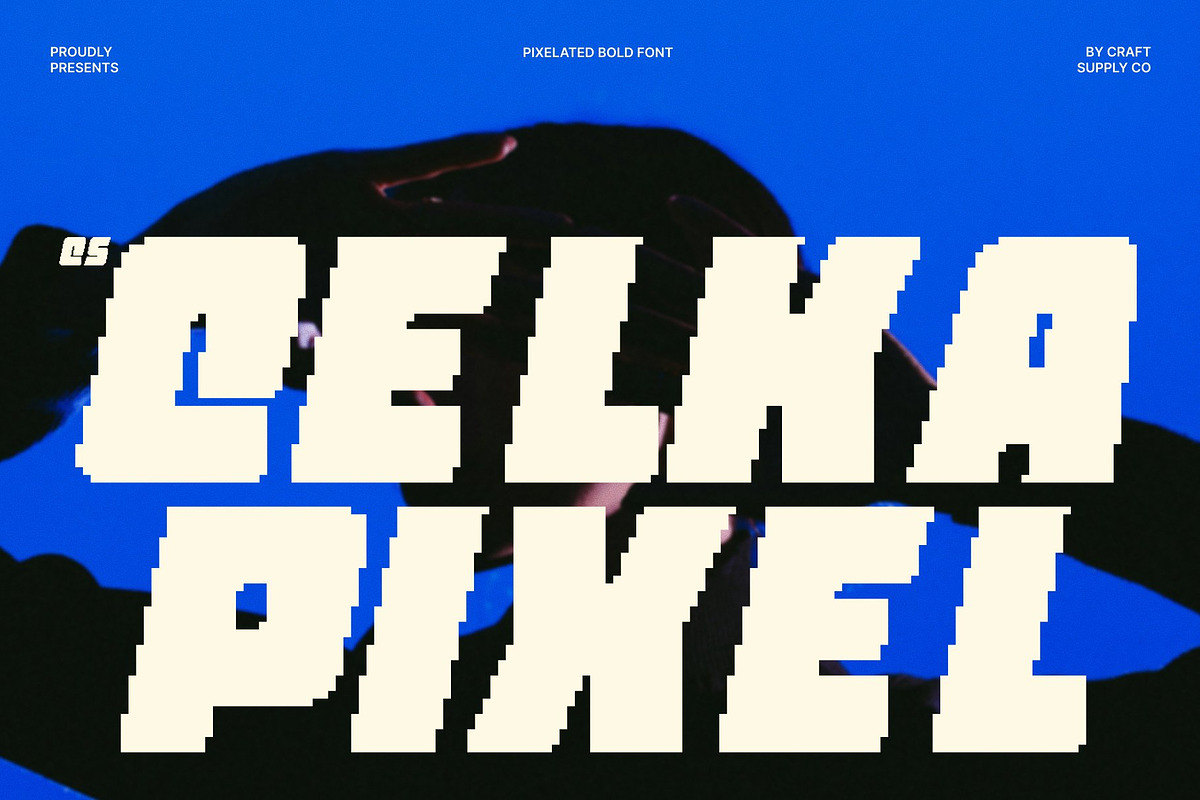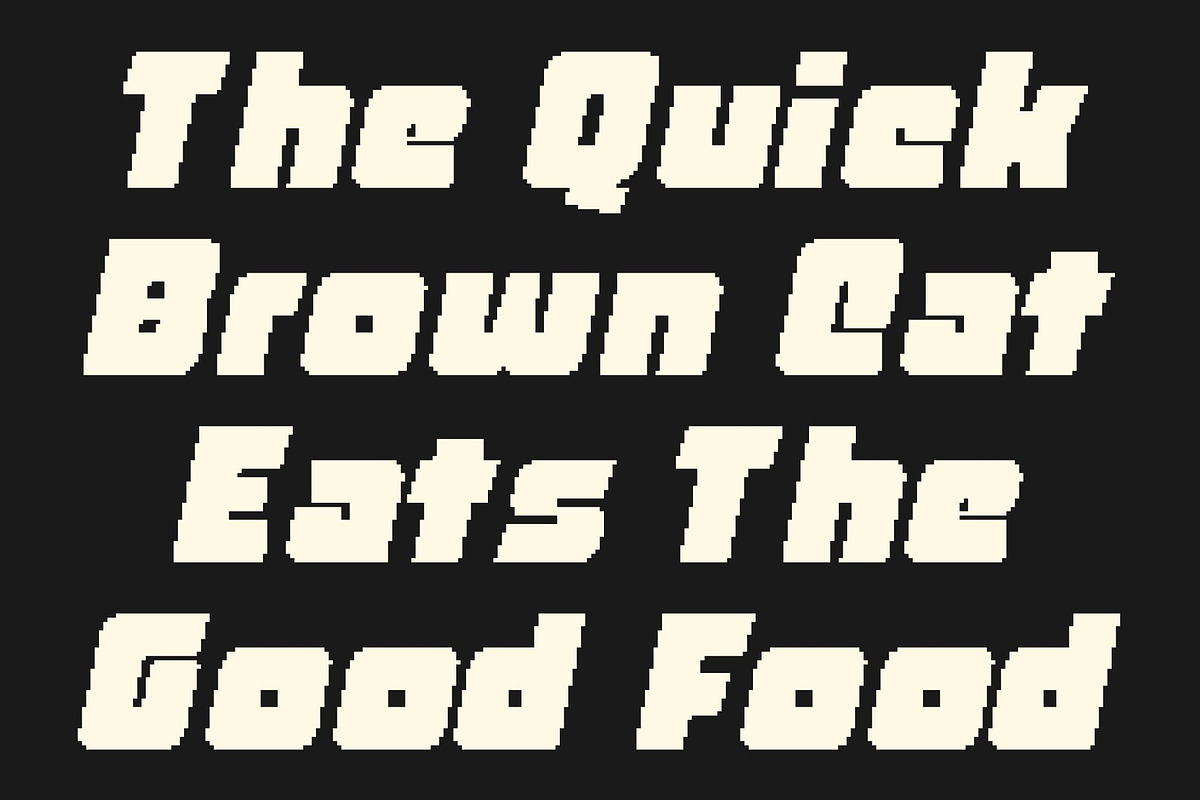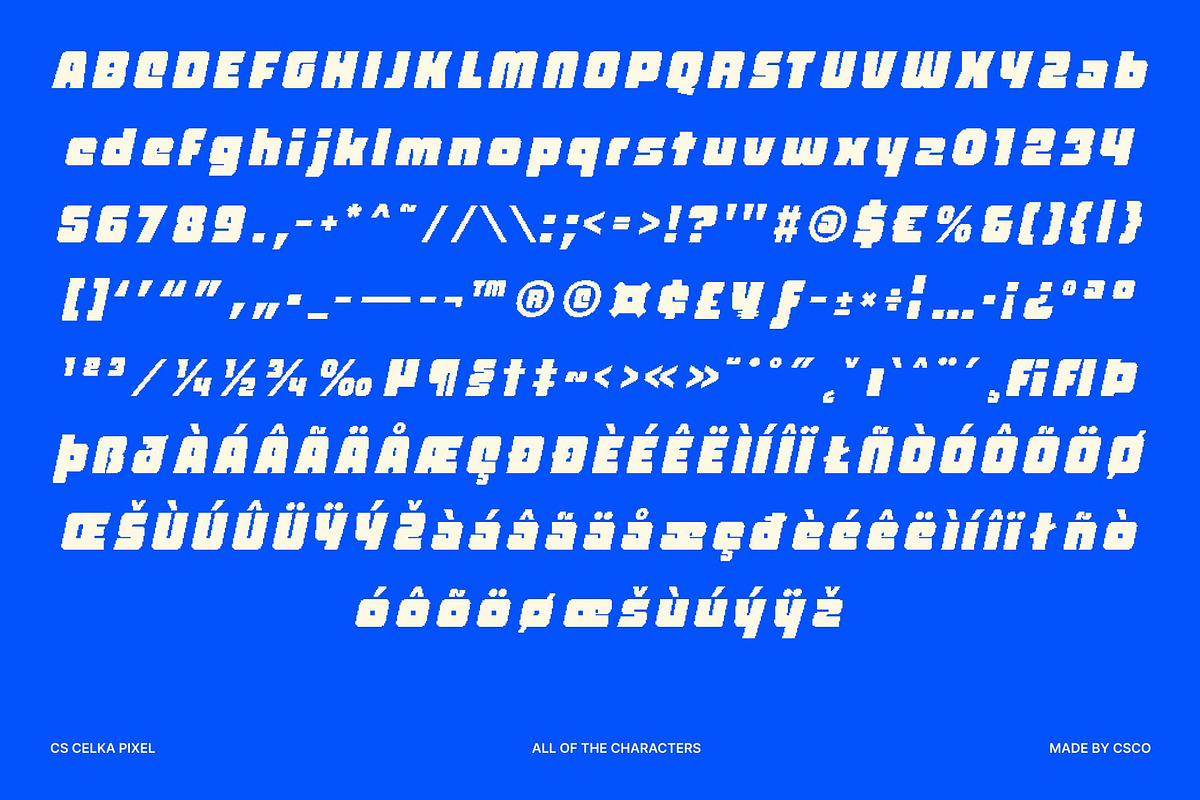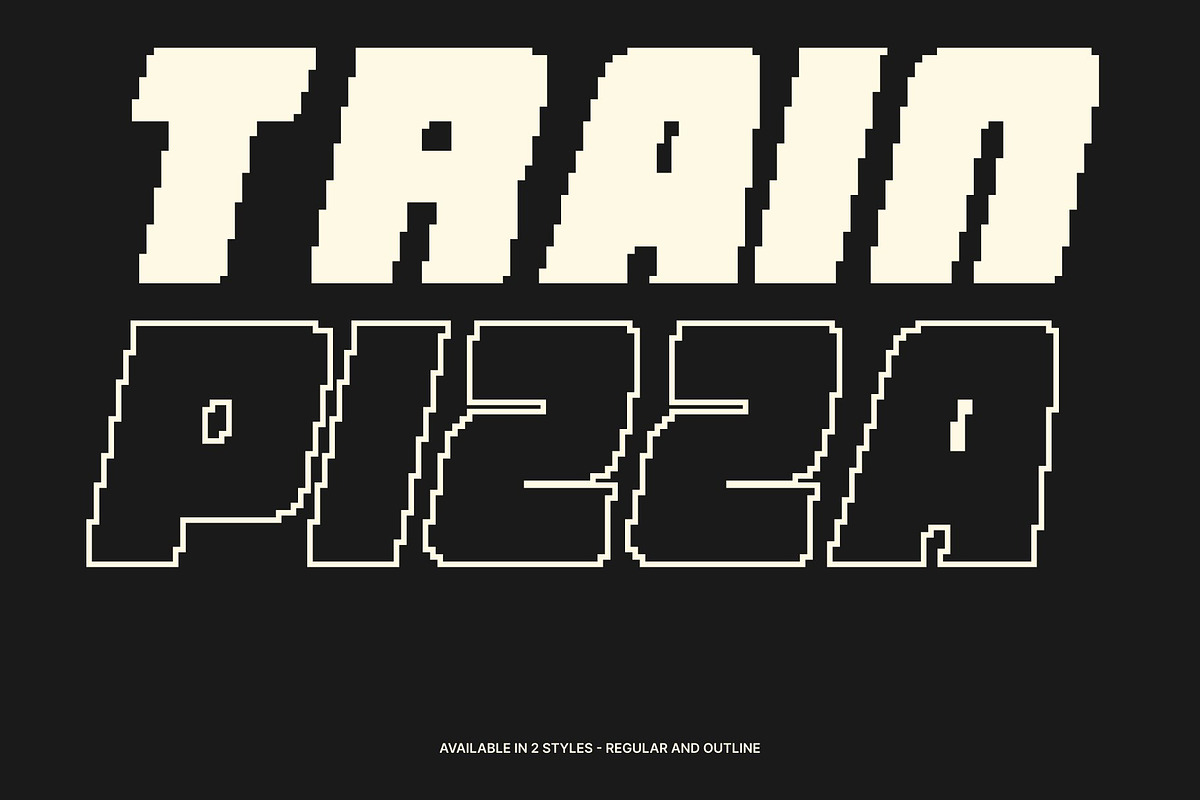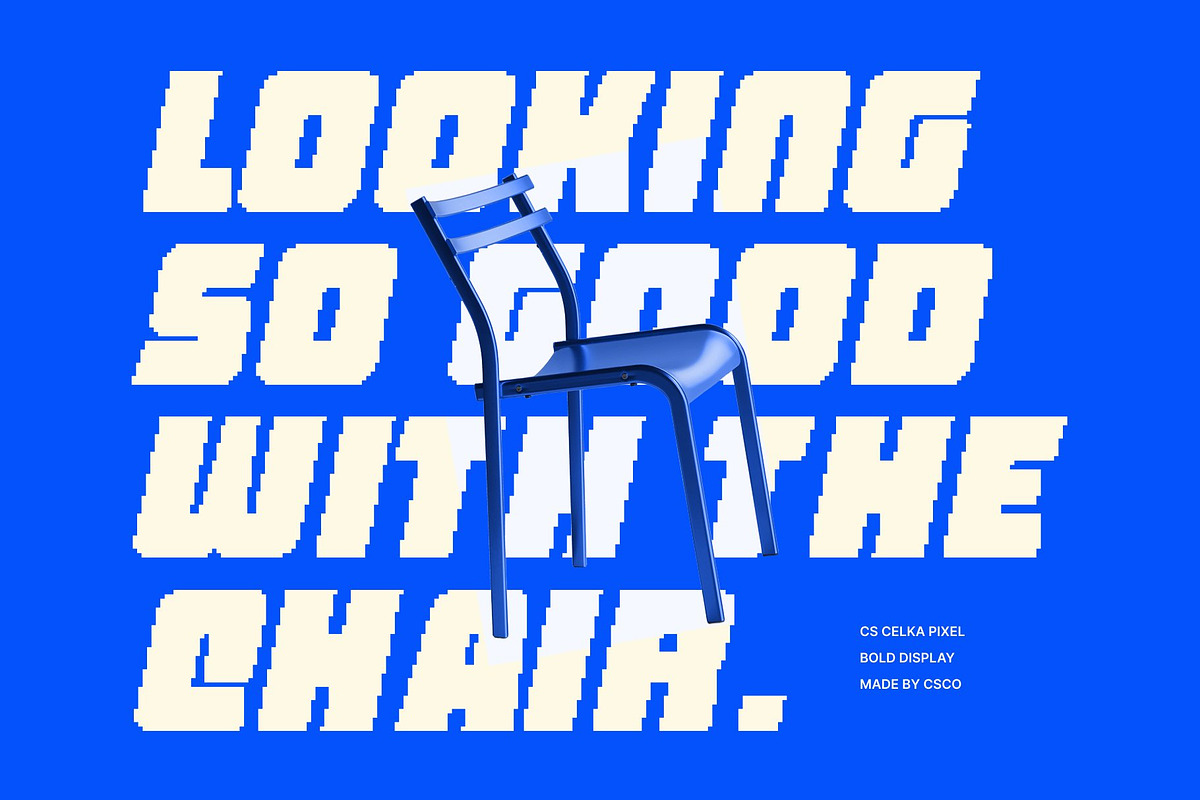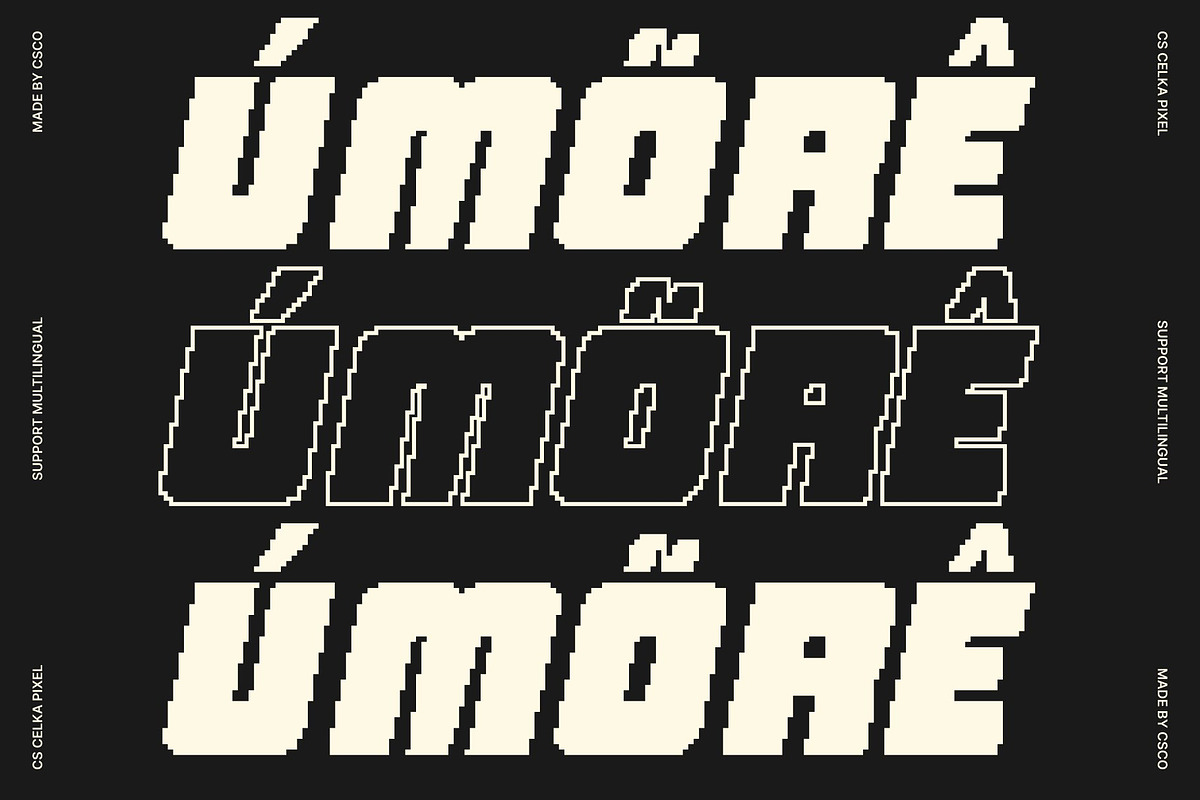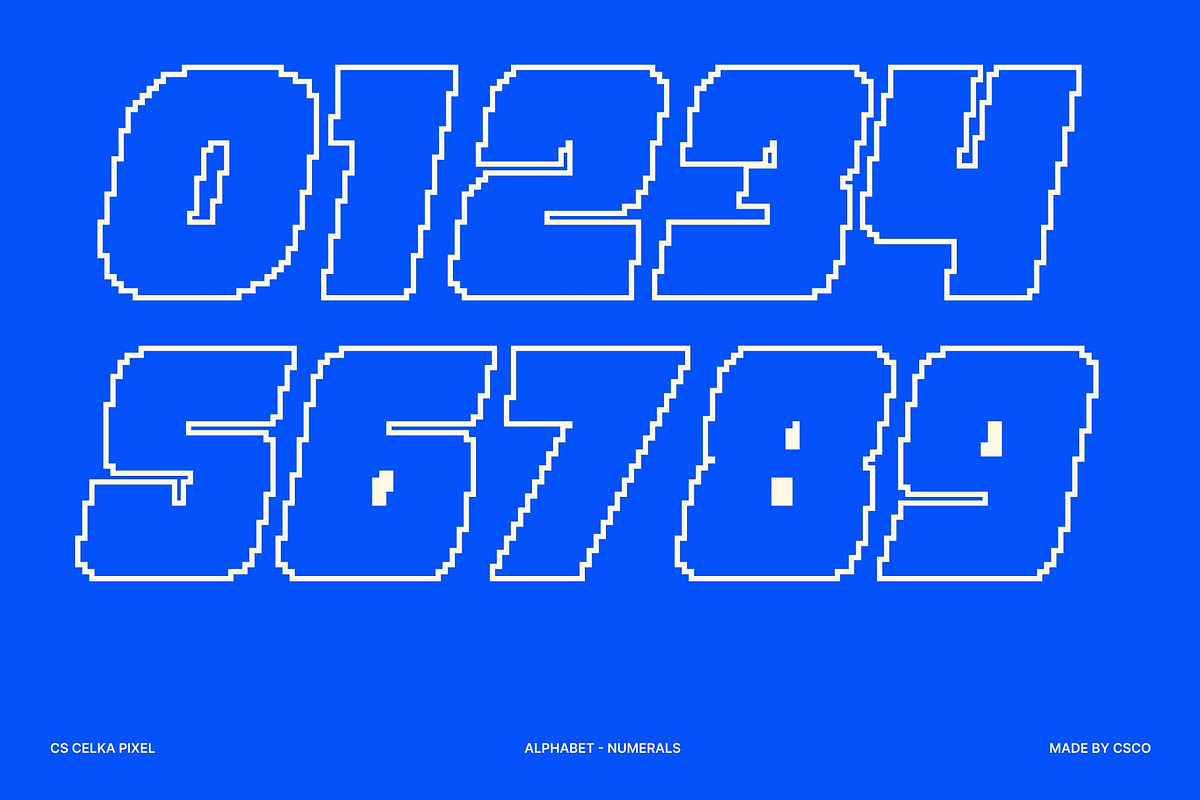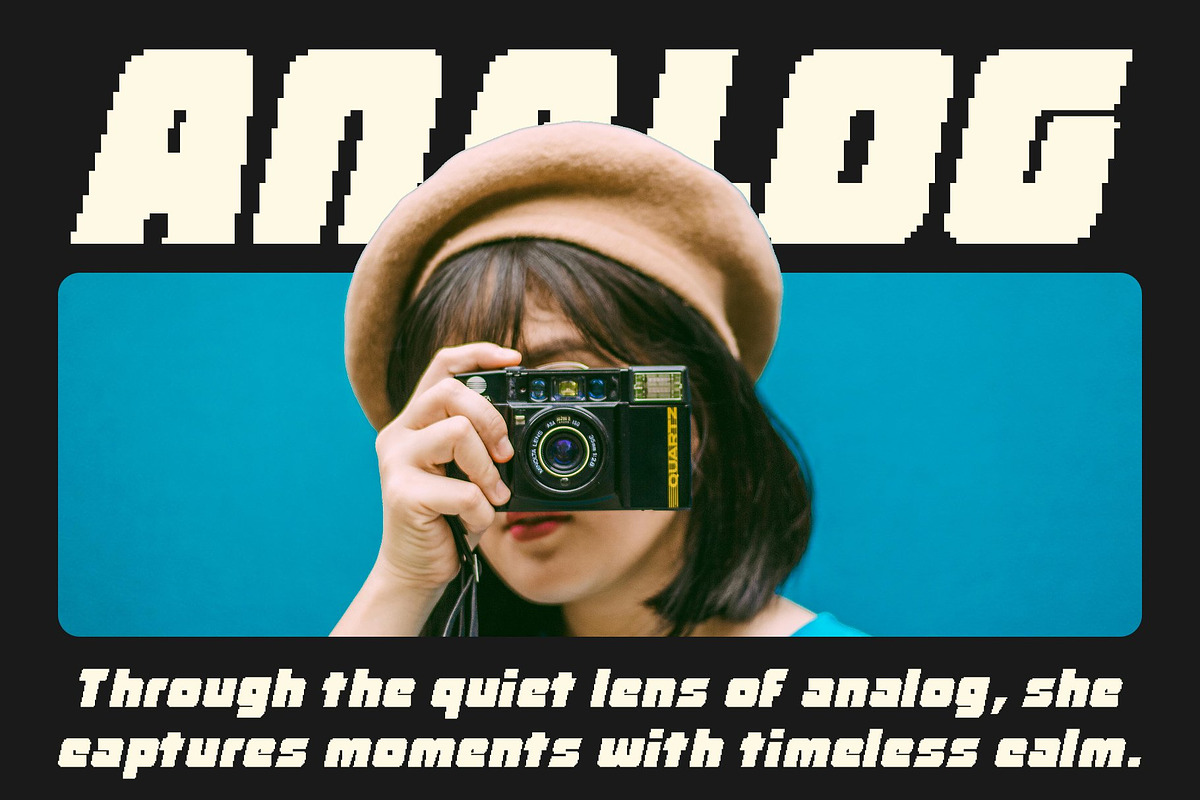
CS Celka Pixel
CS Celka Pixel – Bold Display Font with Strong, Chunky Pixel Presence
Powerful Weight for a Confident, Commanding Digital Look This is a bold display font designed to make an immediate and unforgettable statement. Built with thick, heavy strokes and a pixel-based structure, it projects raw confidence and strength. Every letter feels solid and intentional, ensuring your message is seen, felt, and remembered the moment it appears especially in digital and screen-based designs.
Chunky Pixel Letterforms for Maximum Impact and Visibility Featuring chunky proportions and solid, block-like geometry, this font delivers exceptional readability at large sizes. Its pixel construction adds a retro-digital character inspired by old technology and classic arcade visuals, while maintaining a modern, clean edge. Whether viewed up close or from a distance, the font remains bold, clear, and visually powerful.
Ideal for Headlines, Posters, and High-Impact Digital Branding Designed to shine in display applications, this font is perfect for headlines, posters, promotional graphics, advertisements, and bold branding projects. Its heavy weight and pixel precision give designs a strong, commanding presence ideal for projects that demand attention and authority.
Perfect for Energetic, Modern, and Retro-Tech Creative Projects With its intense structure and digital personality, this font fits seamlessly into creative projects that need energy and impact. From event graphics and merchandise to logos, gaming visuals, and social media content, this font brings a powerful pixel-driven attitude to every layout.
- CS Celka Pixel Regular
- CS Celka Pixel Outline